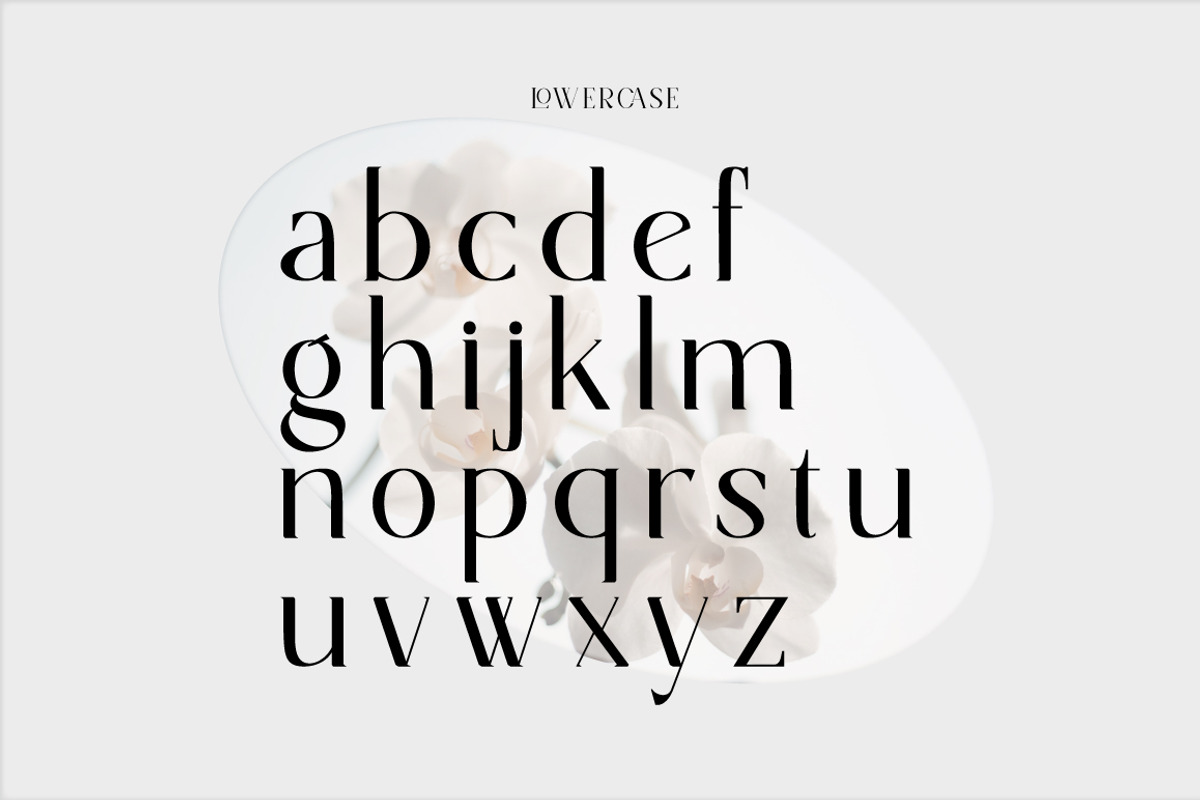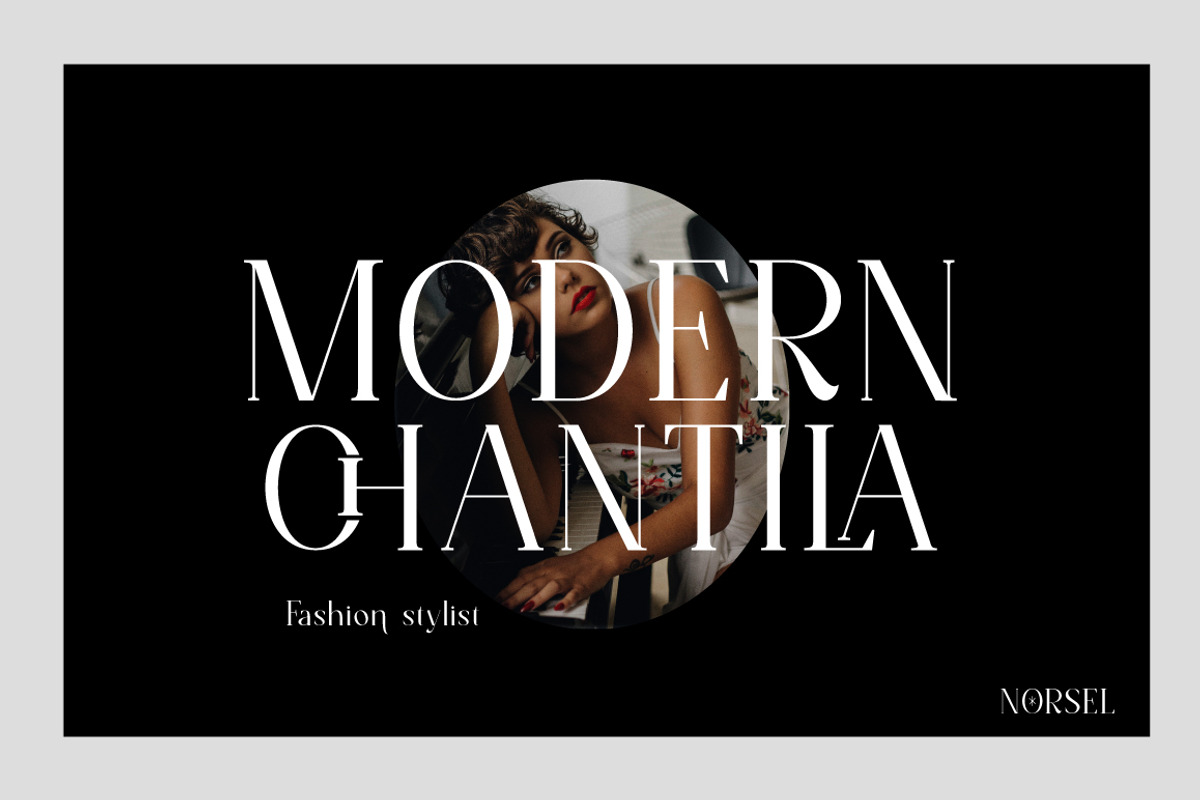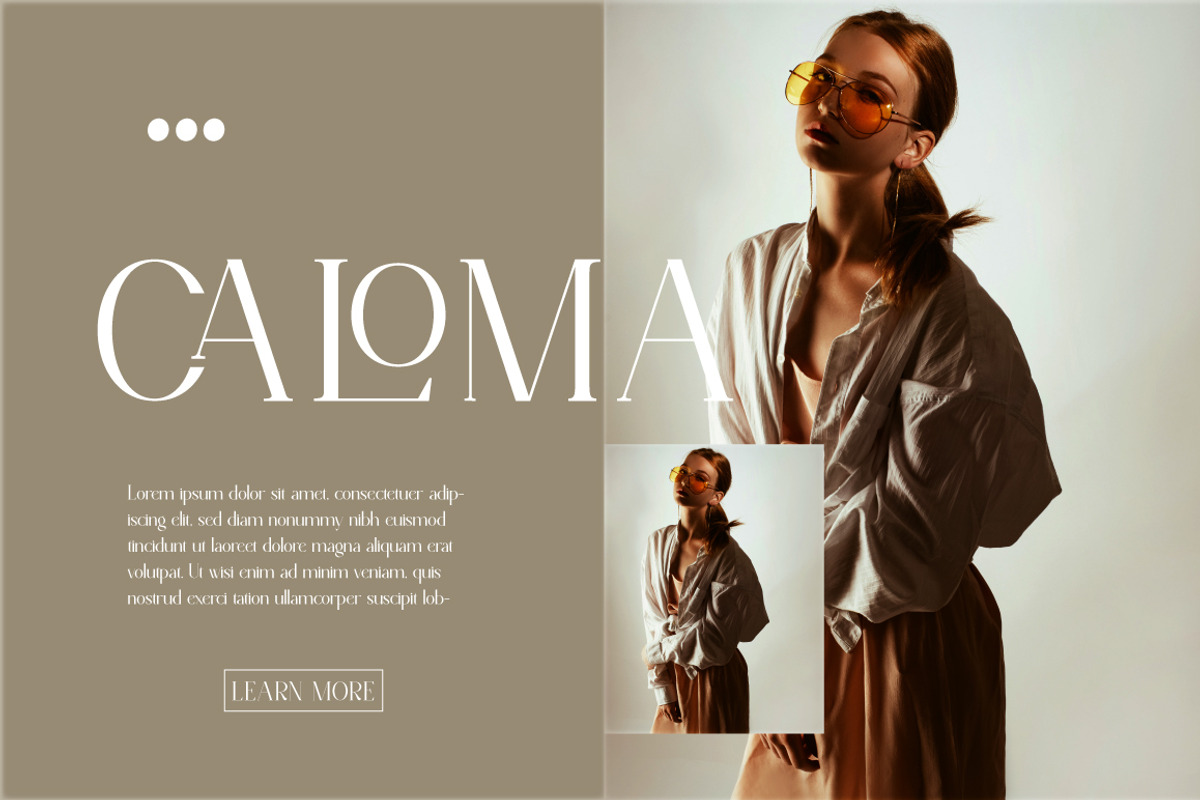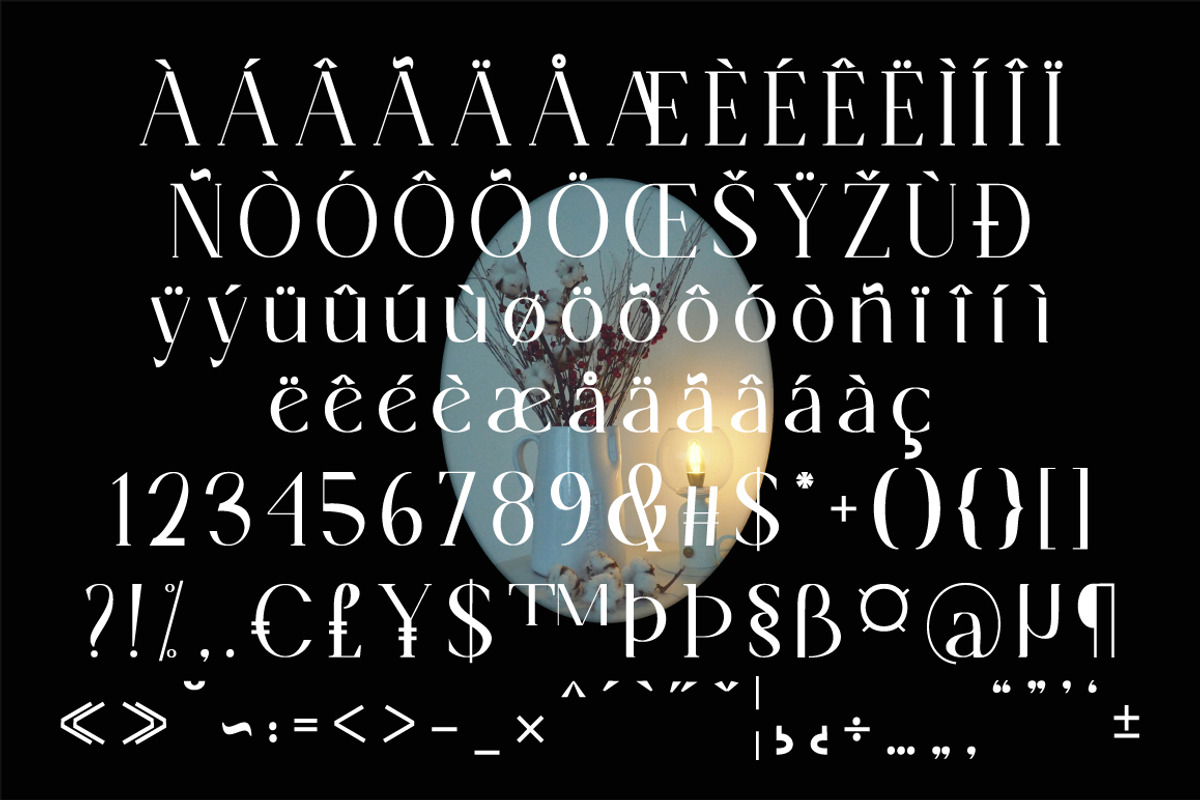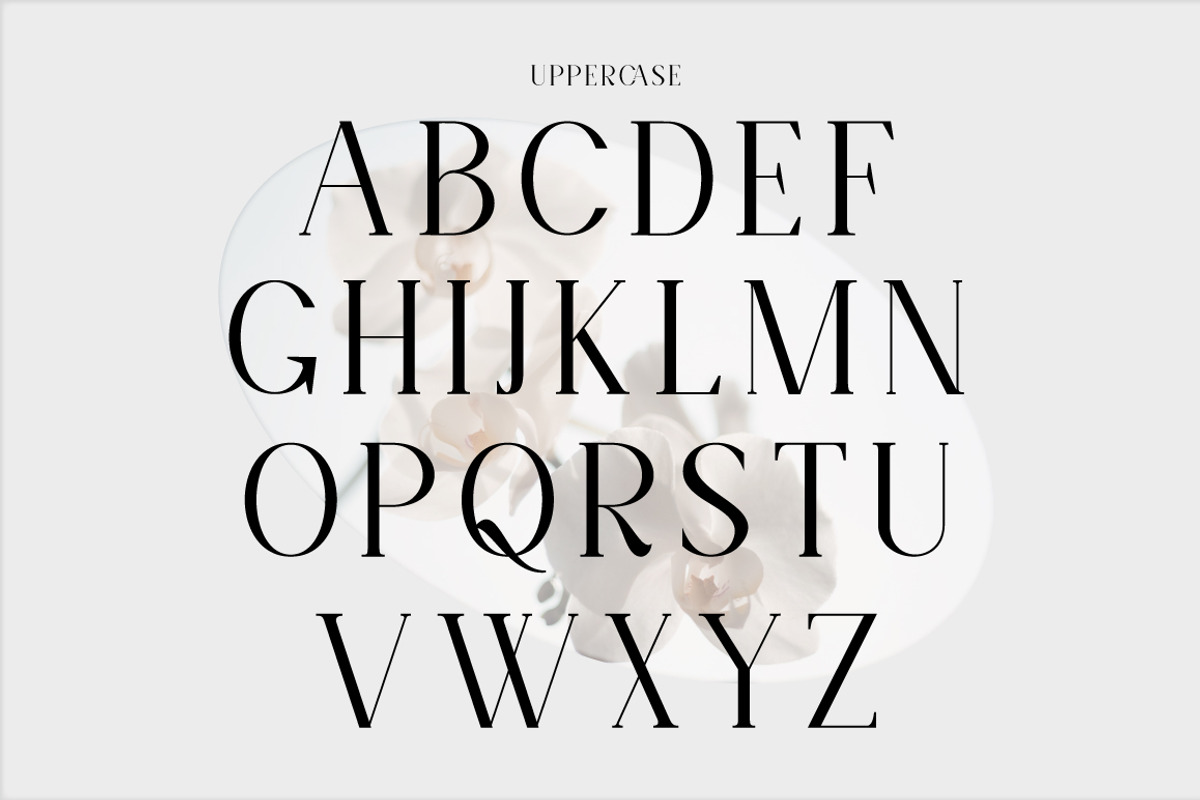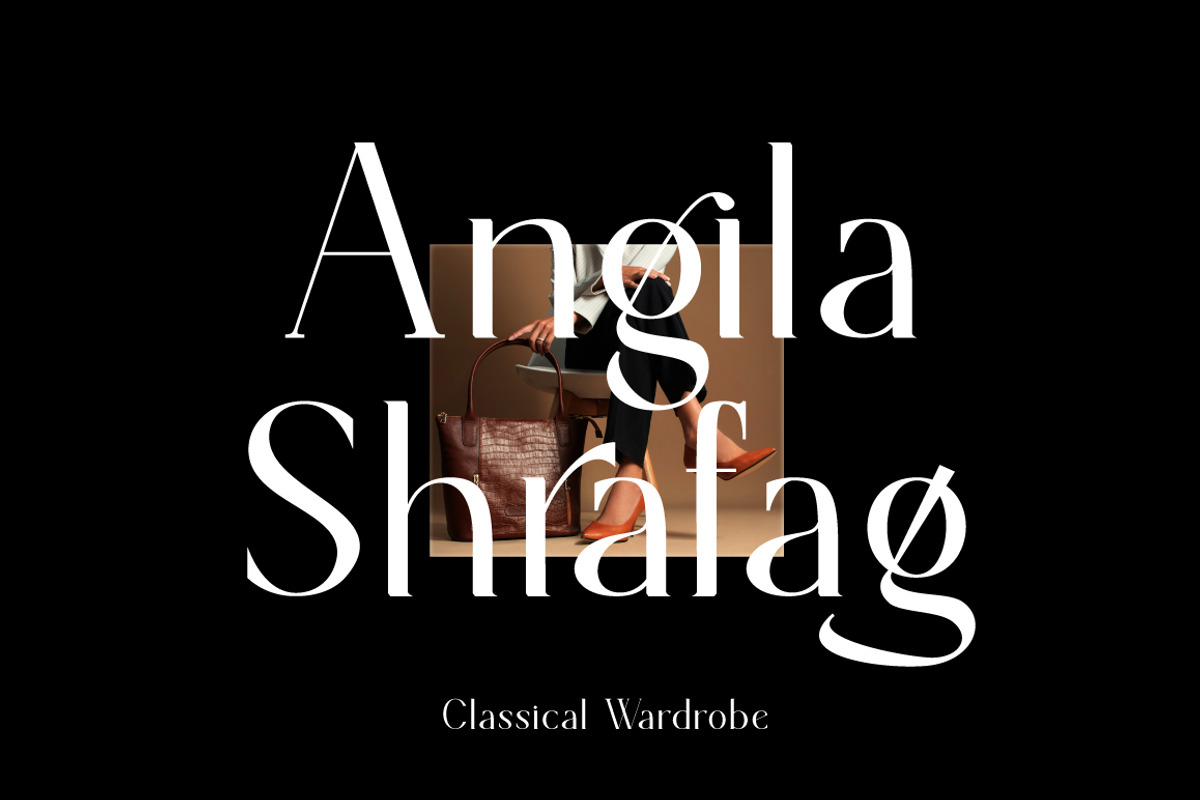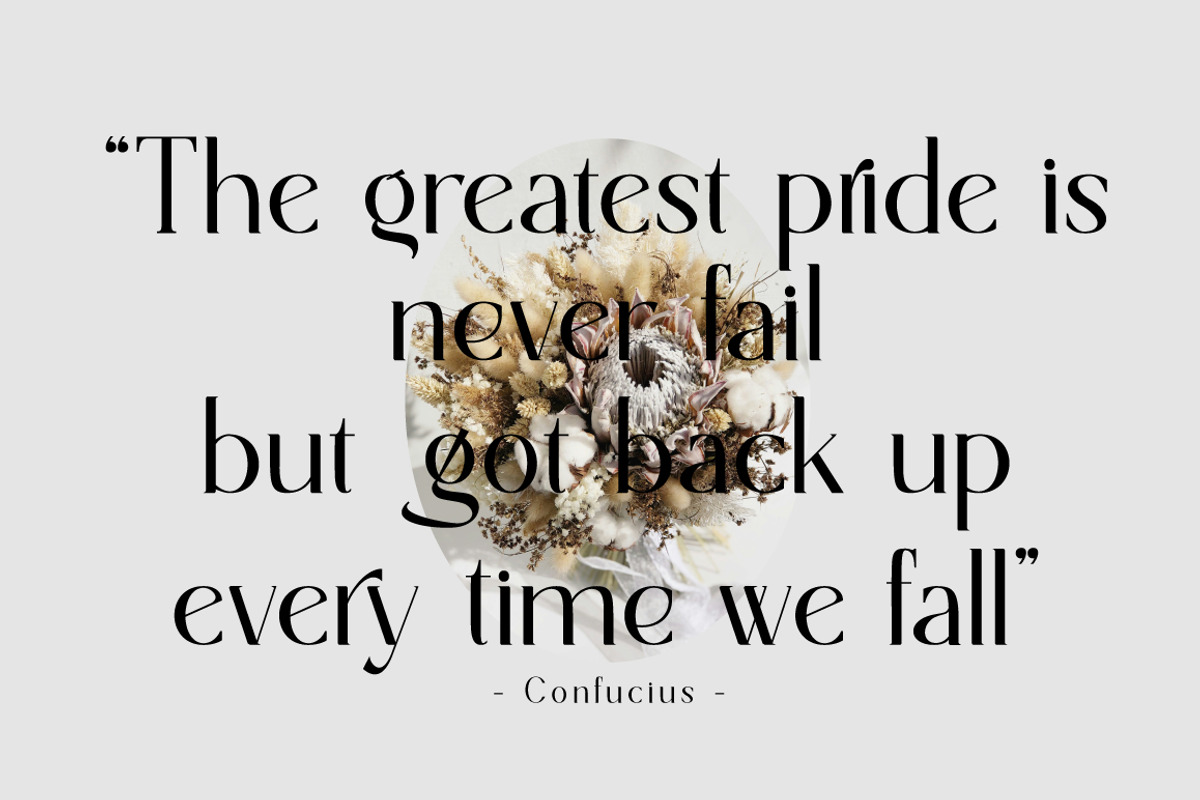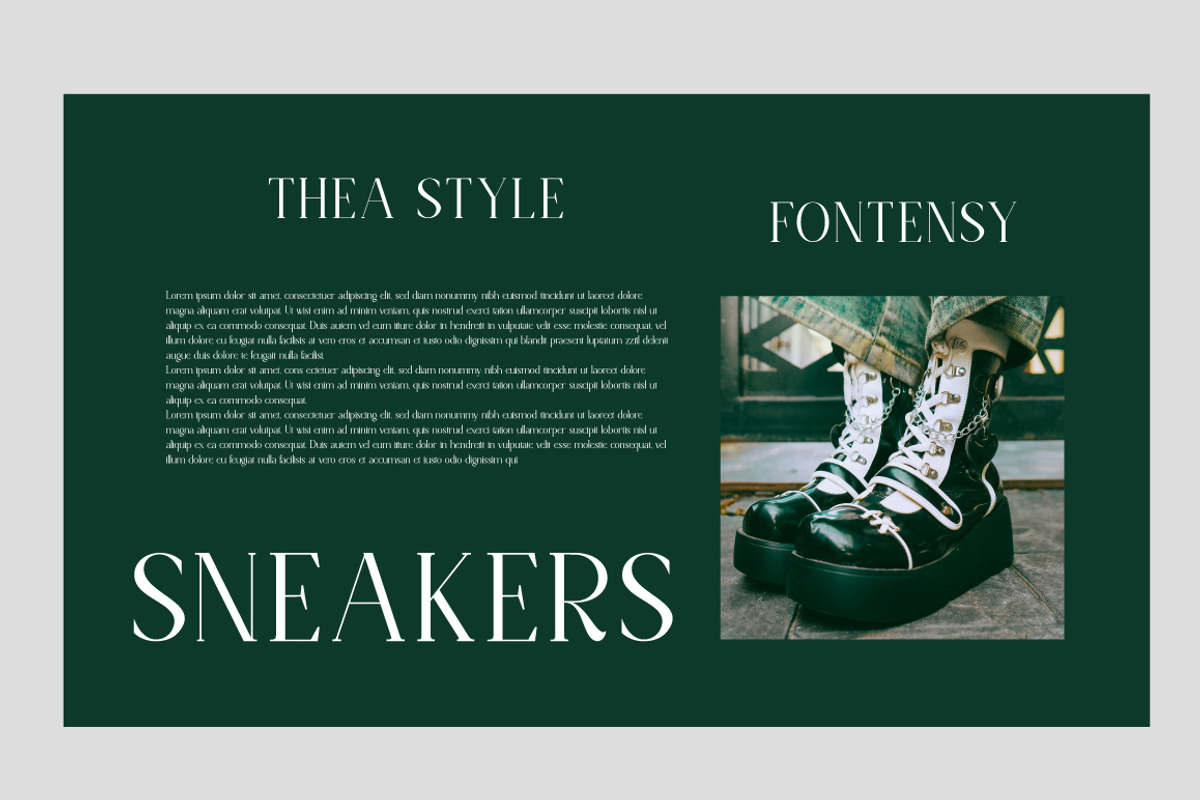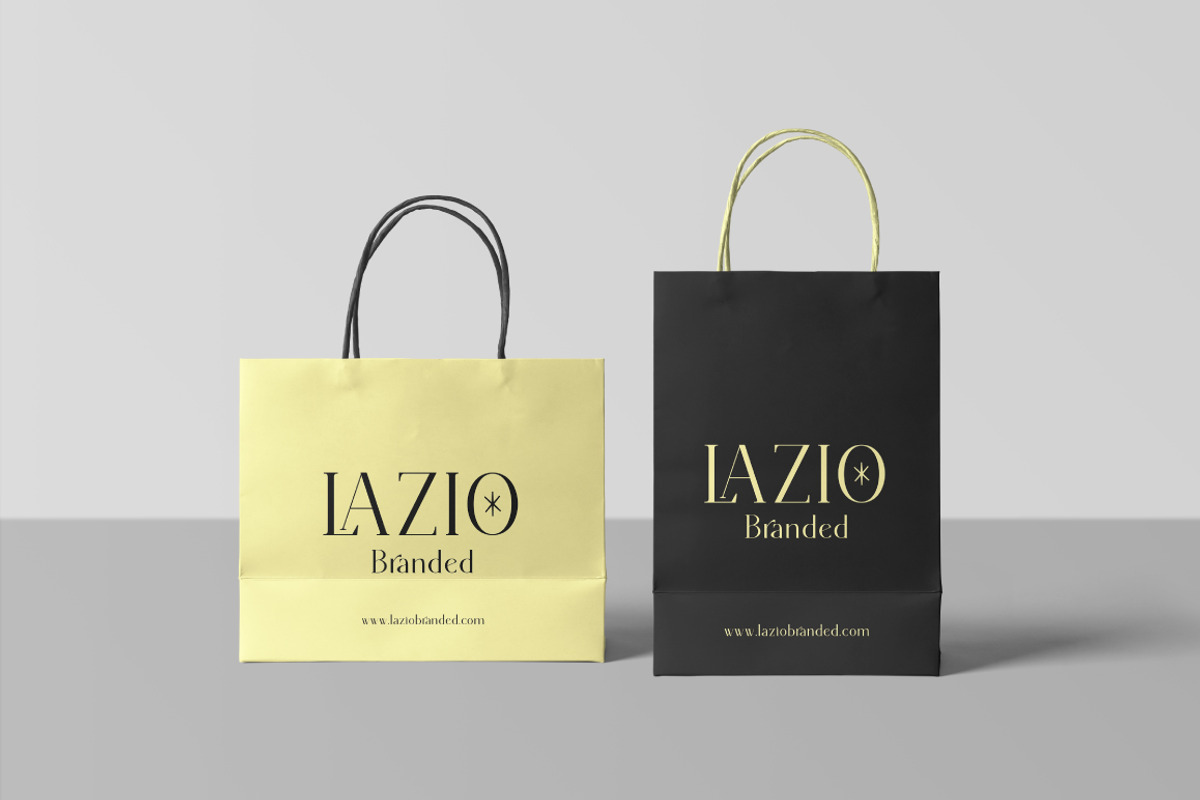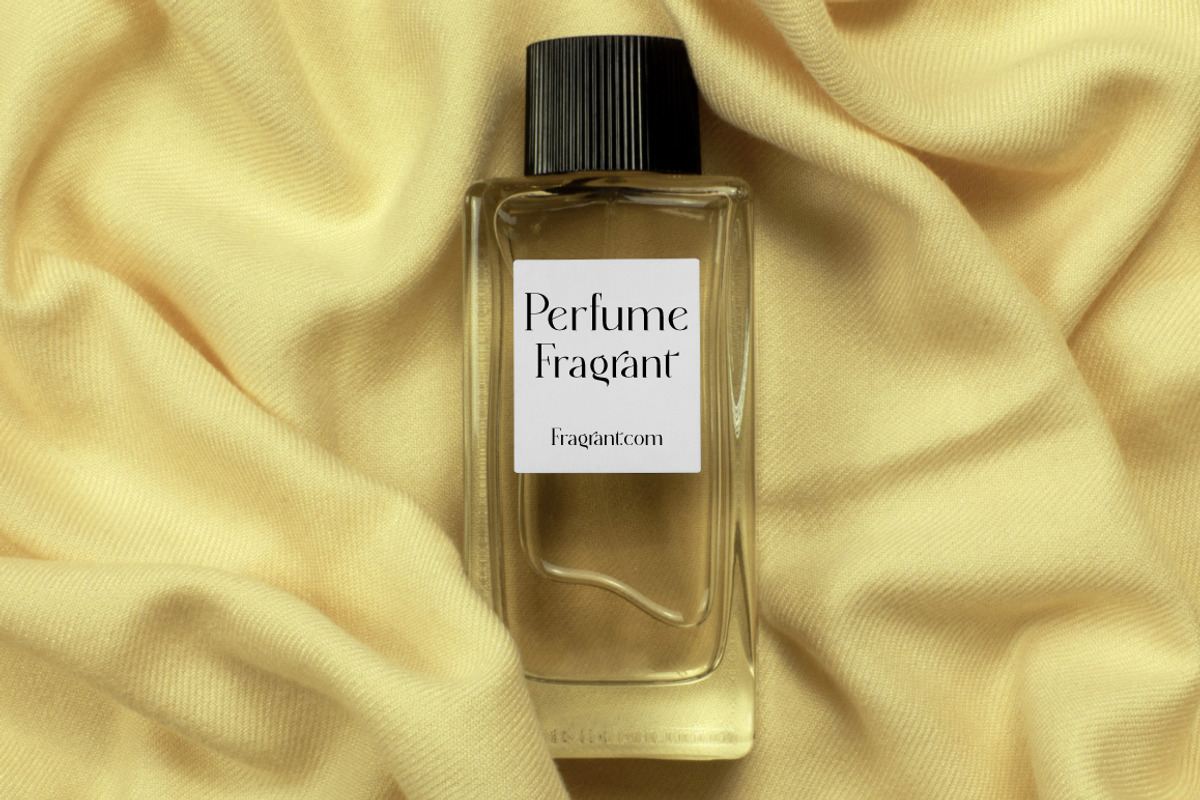
Norsel - Elegant Serif
I'm present to you, new retro serif called Norsel!
Norsel is a stylish font that is both retro and bold font. It's thick curves give a 70s groovy vibe with the serifs bringing it slightly back to traditional
Norsel fits perfectly into those nostalgic moodboards and vintage logos. It come with a unique lower and uppercase plus numbers, punctuation & multilingual letters.